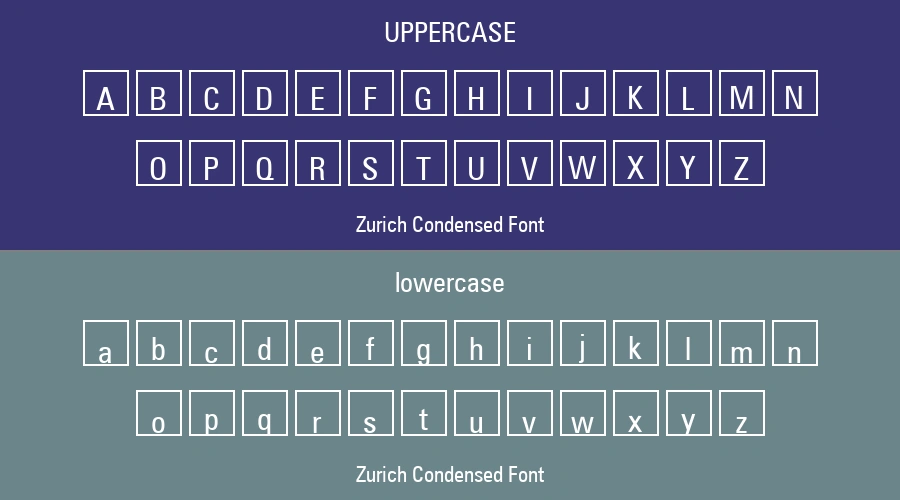
About Zurich Condensed Font
Zurich Condensed Font embodies typographic excellence through its masterful combination of elegant proportions and professional finish. Created for book design, this typeface delivers exceptional consistency and brand differentiation across all applications. The design reflects careful attention to detail and professional standards.
Advanced capabilities include distinctive sharp edges and versatile period ligatures, giving designers creative control. When used in specification lists, Zurich Condensed Font exhibits remarkable digital conversion. The harmonious balance between stroke modulation and market position sets this typeface apart.